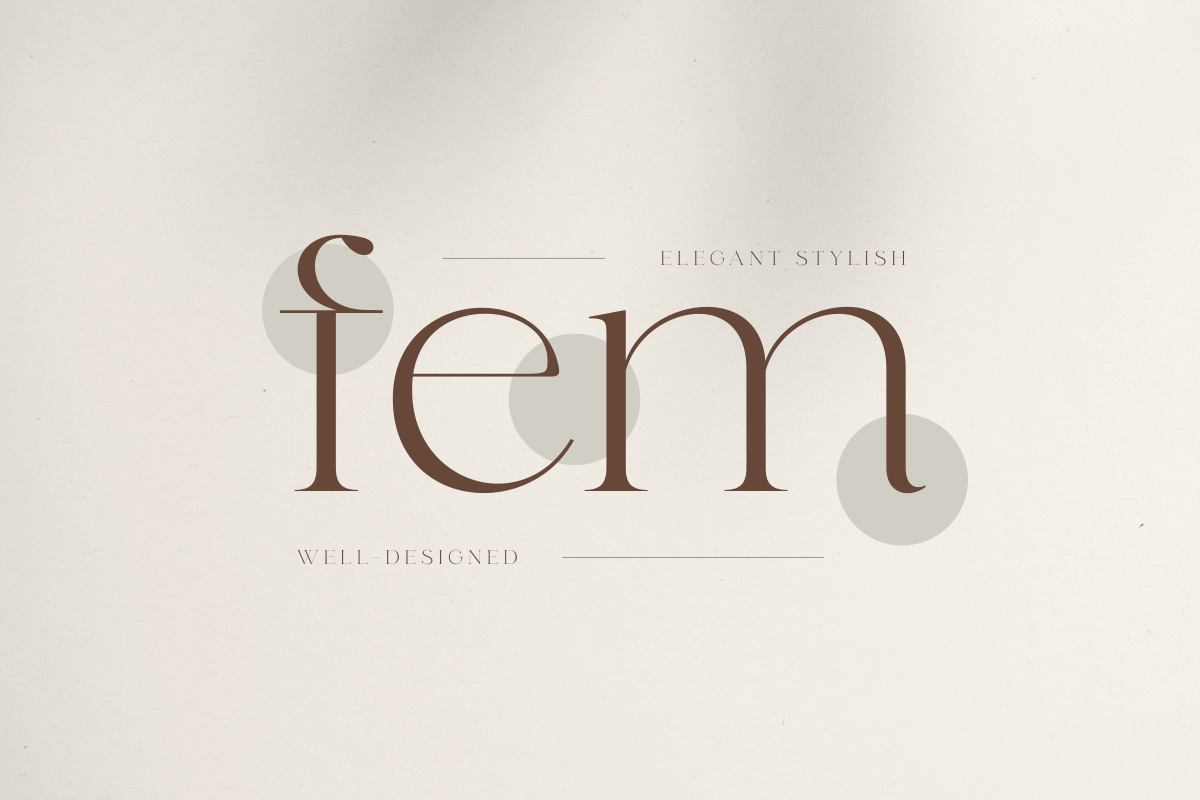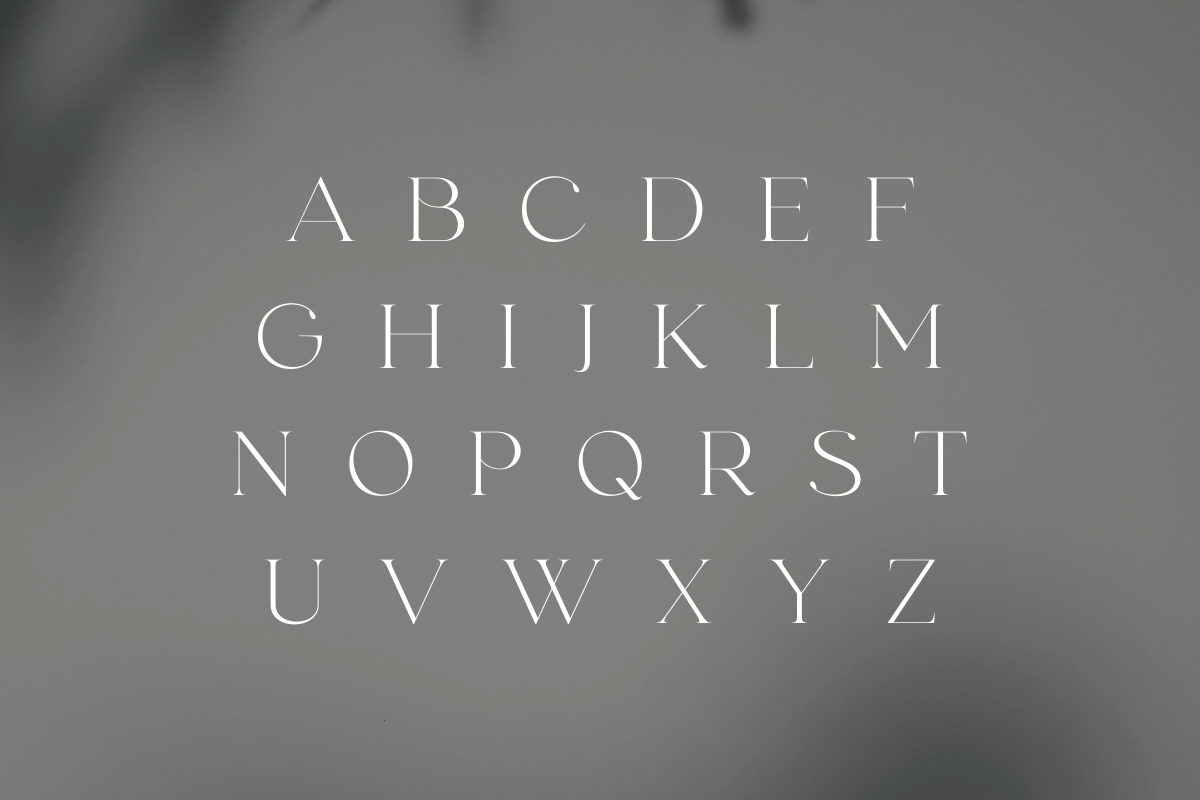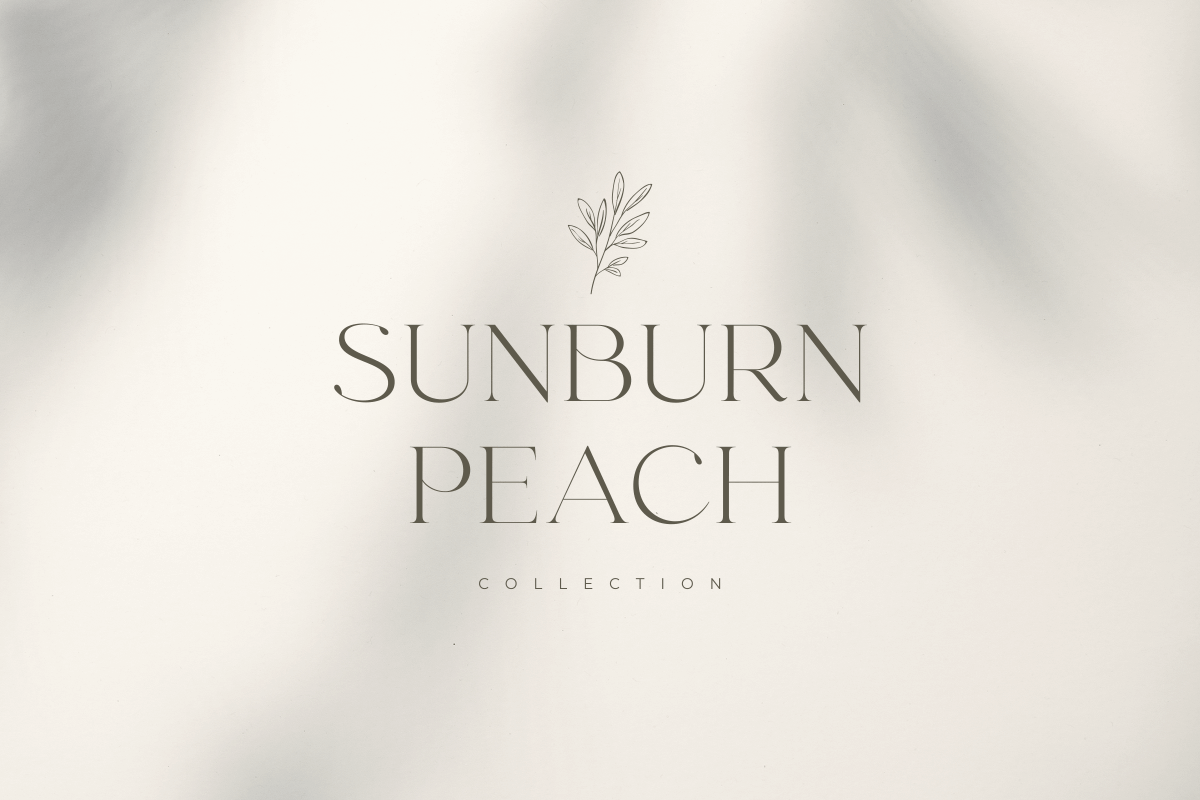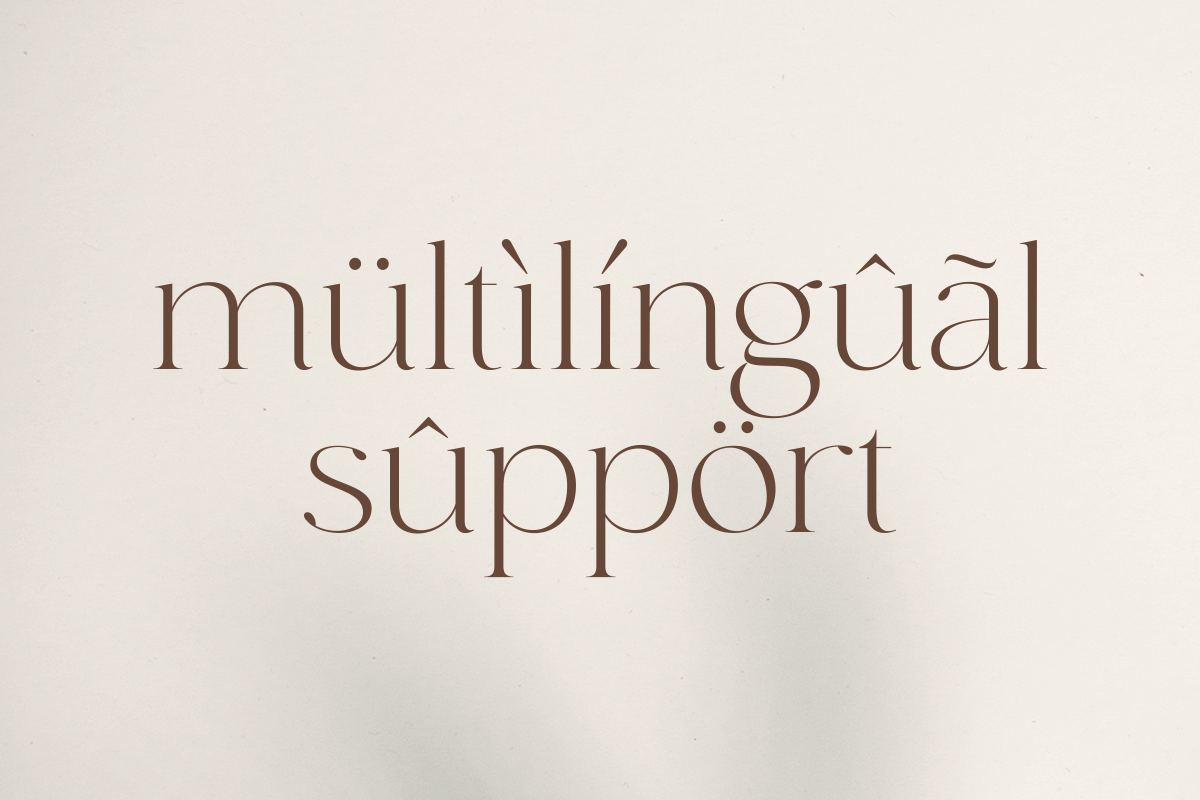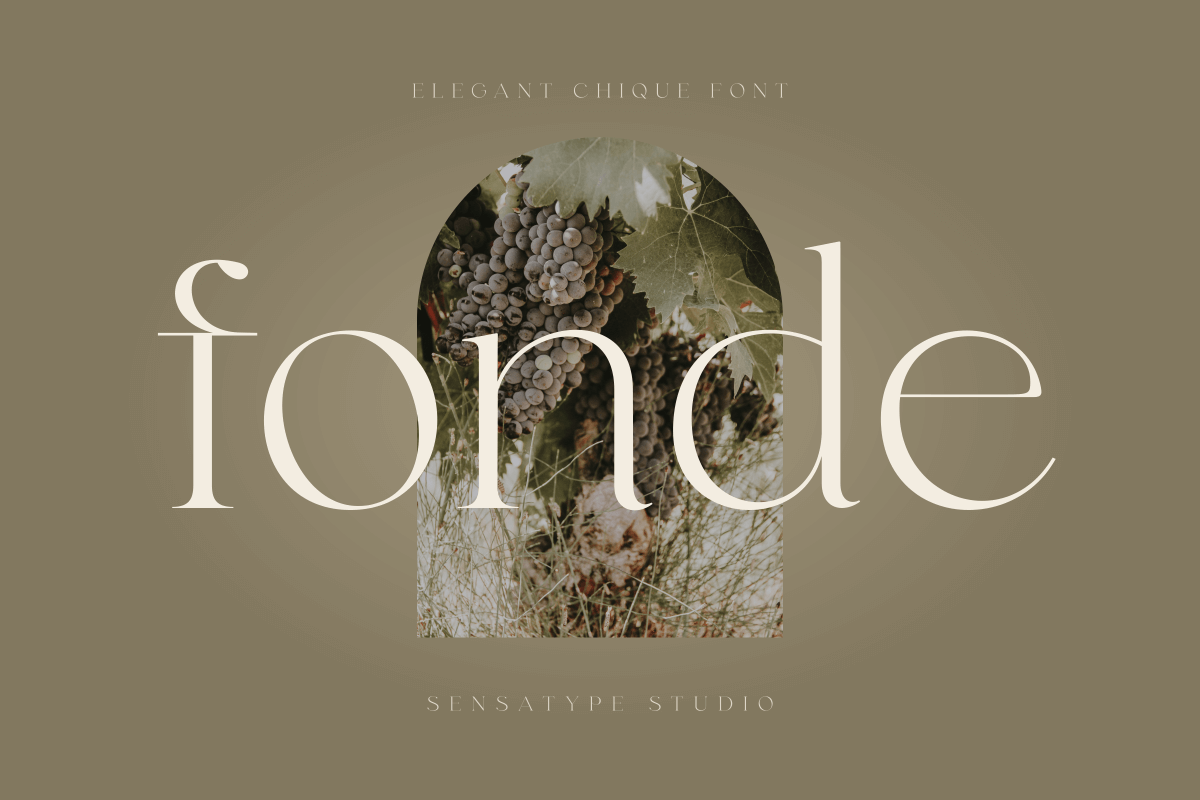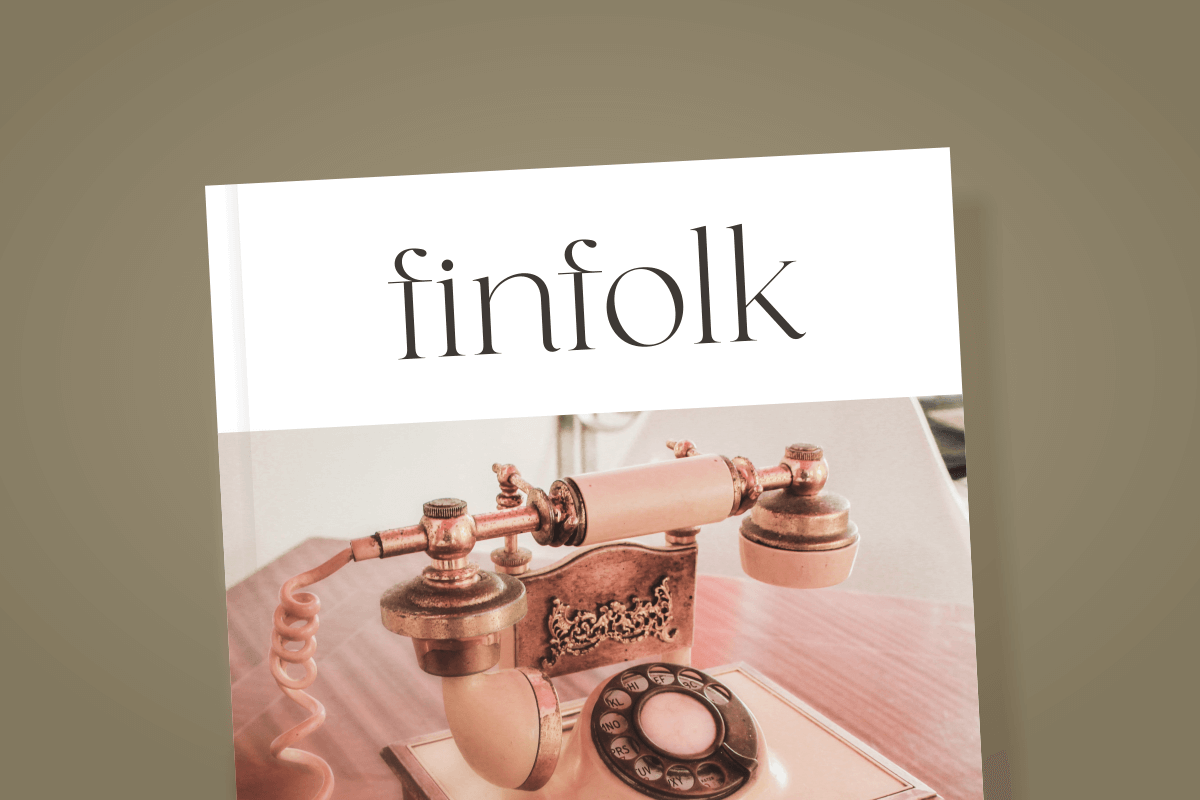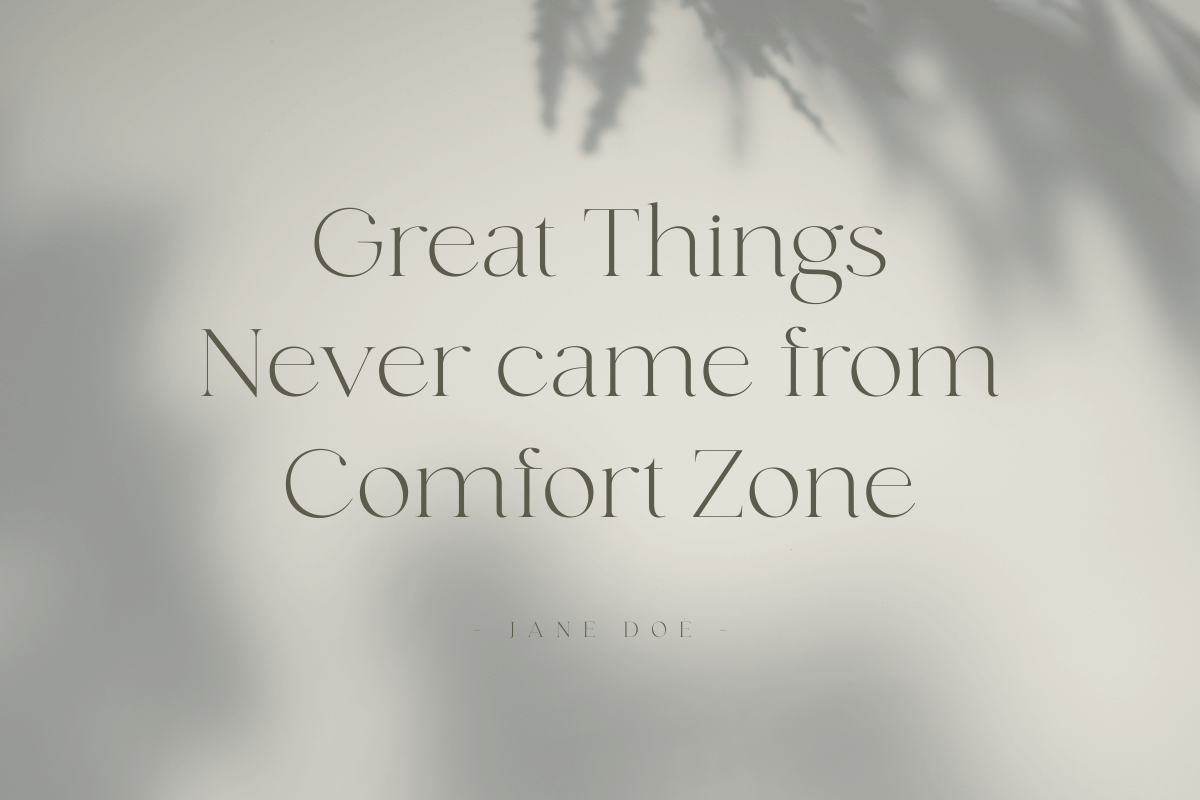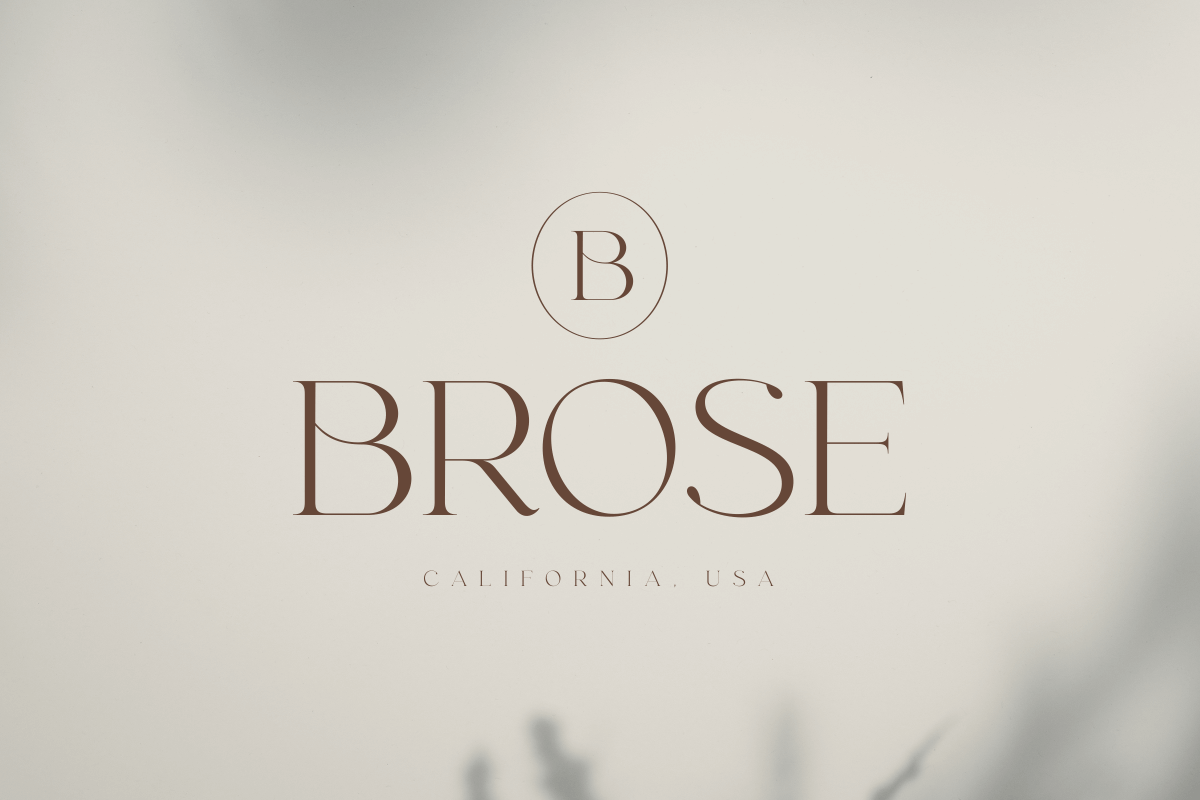
Fonde - Elegant Chic Font
Fonde is an elegant and chic font designed to give your projects a refined and stylish look. Its graceful letterforms make it ideal for branding, logos, invitations, packaging, and editorial designs.
Combining elegance with readability, Fonde enhances any creative project with a polished and professional aesthetic. Perfect for both digital and print applications, this font adds a contemporary, classy touch to your designs.
Fonde – Elegant Chic Font Features
• Stylish and elegant character set
• Chic, refined, and professional design
• Includes uppercase, lowercase, numerals, and punctuation
• Suitable for digital and print projects
• OpenType features for versatile typography
• Multilingual support